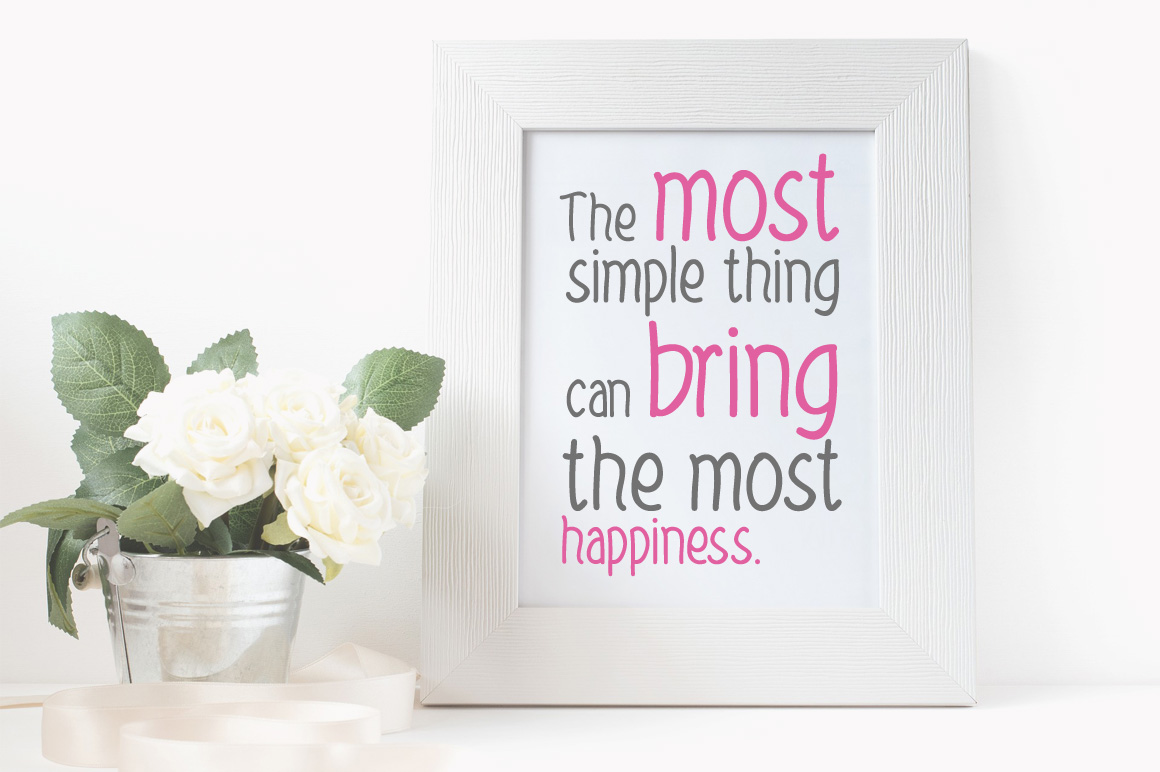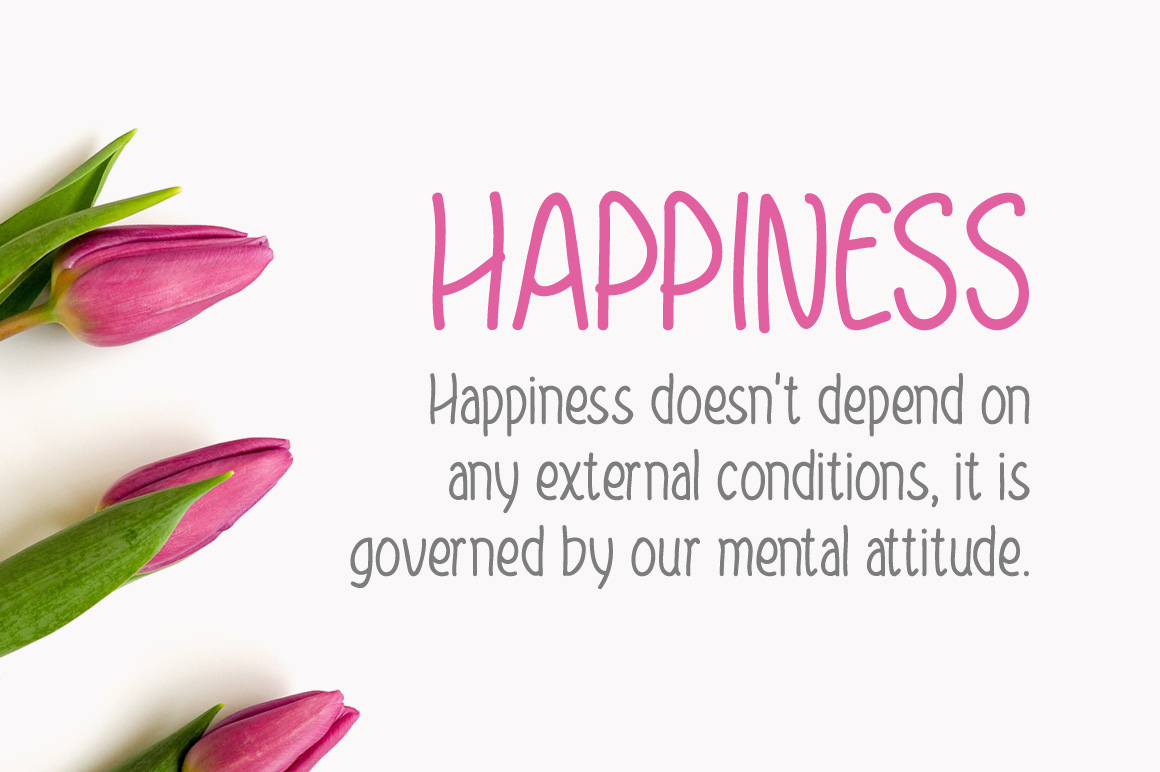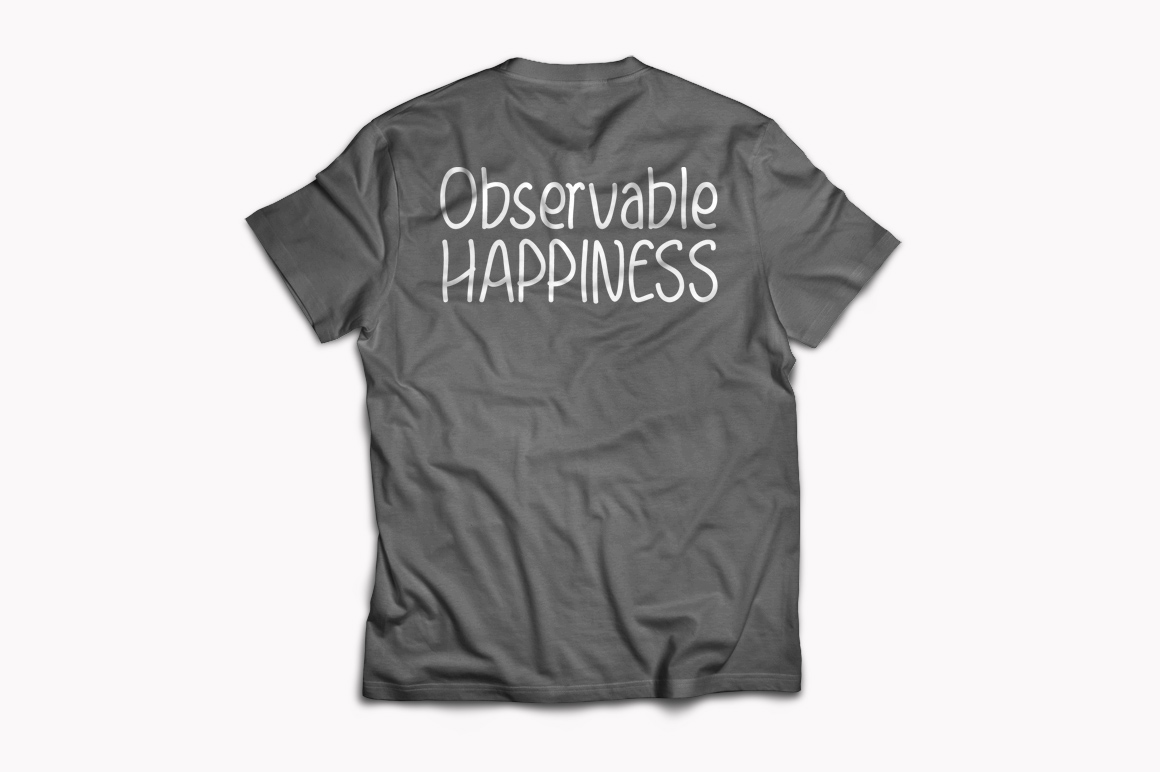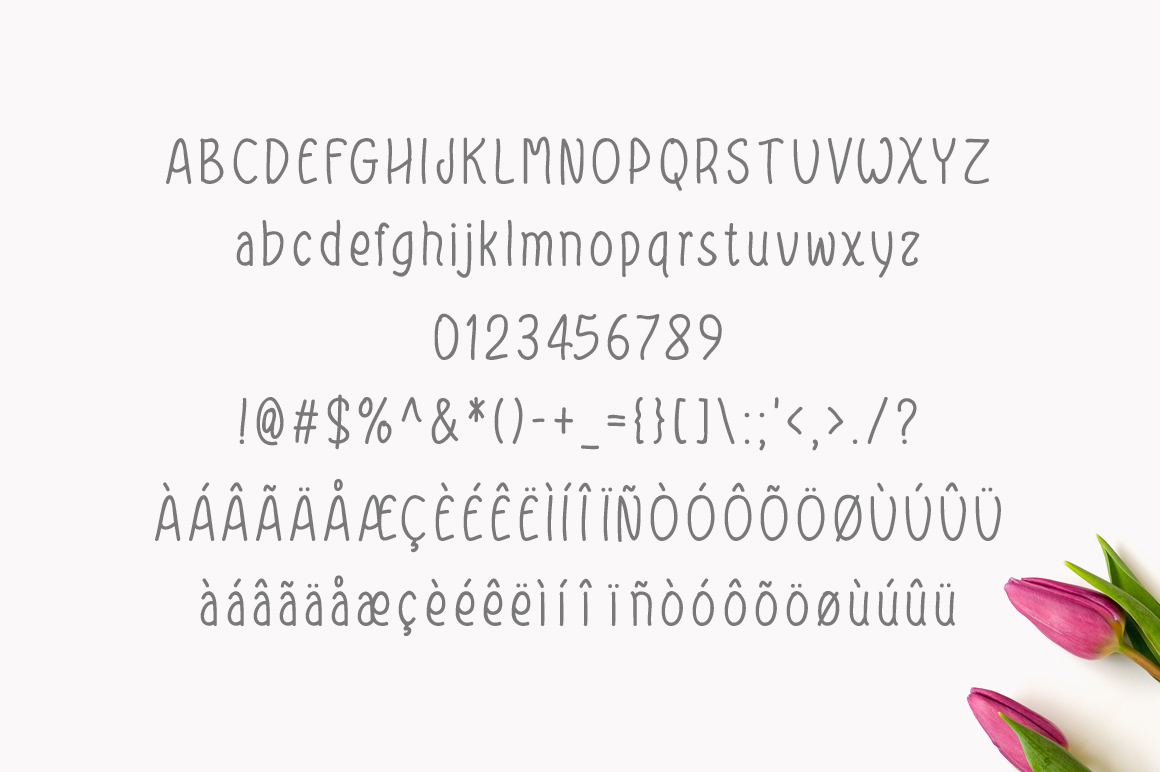
Introduction to Observable Happiness Font
Observable Happiness is a cutesy and friendly font, perfect for ushering Spring time.
This font looks gorgeous paired with cursive/calligraphy styles, or standalone for a truly branded look .